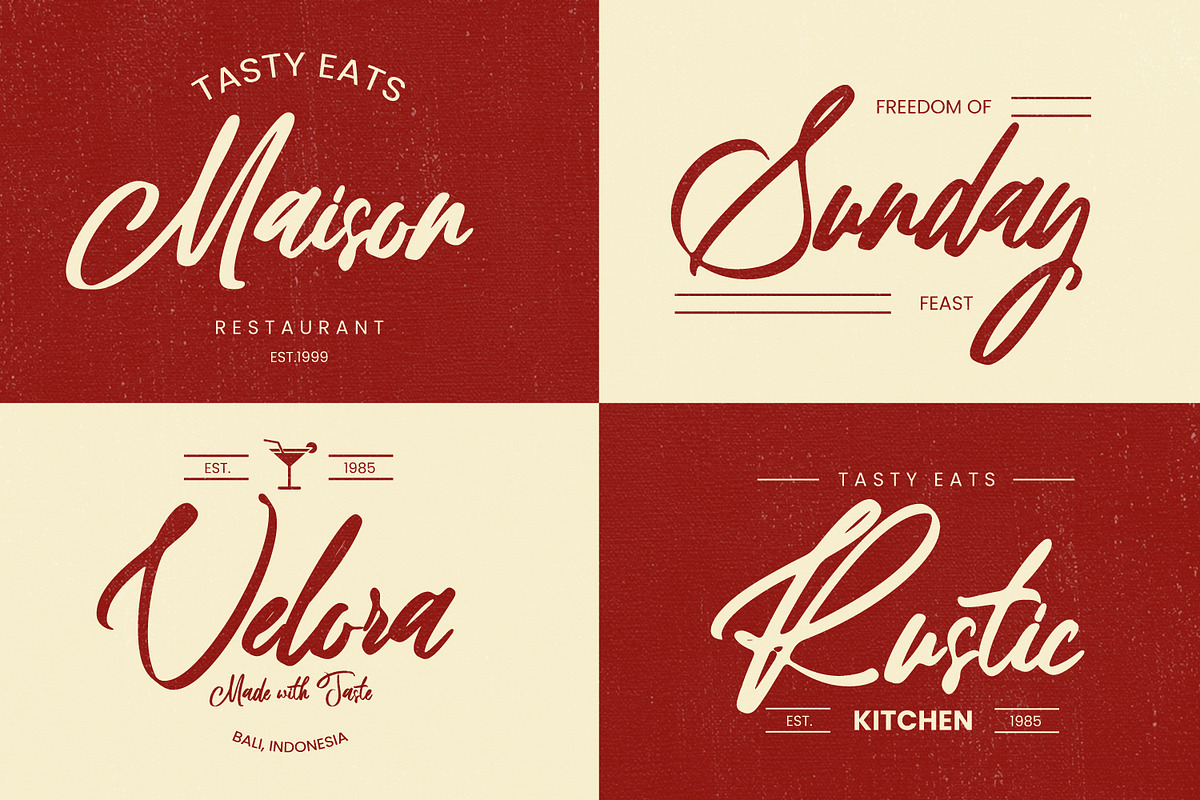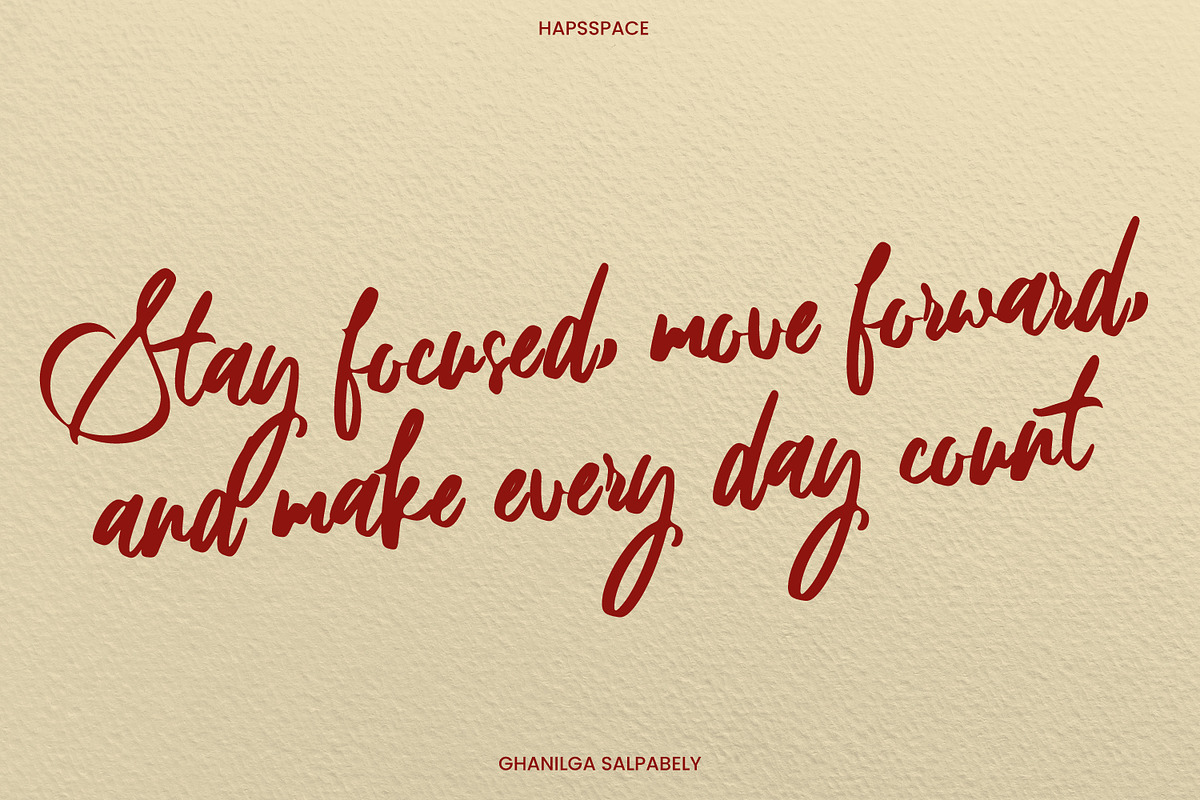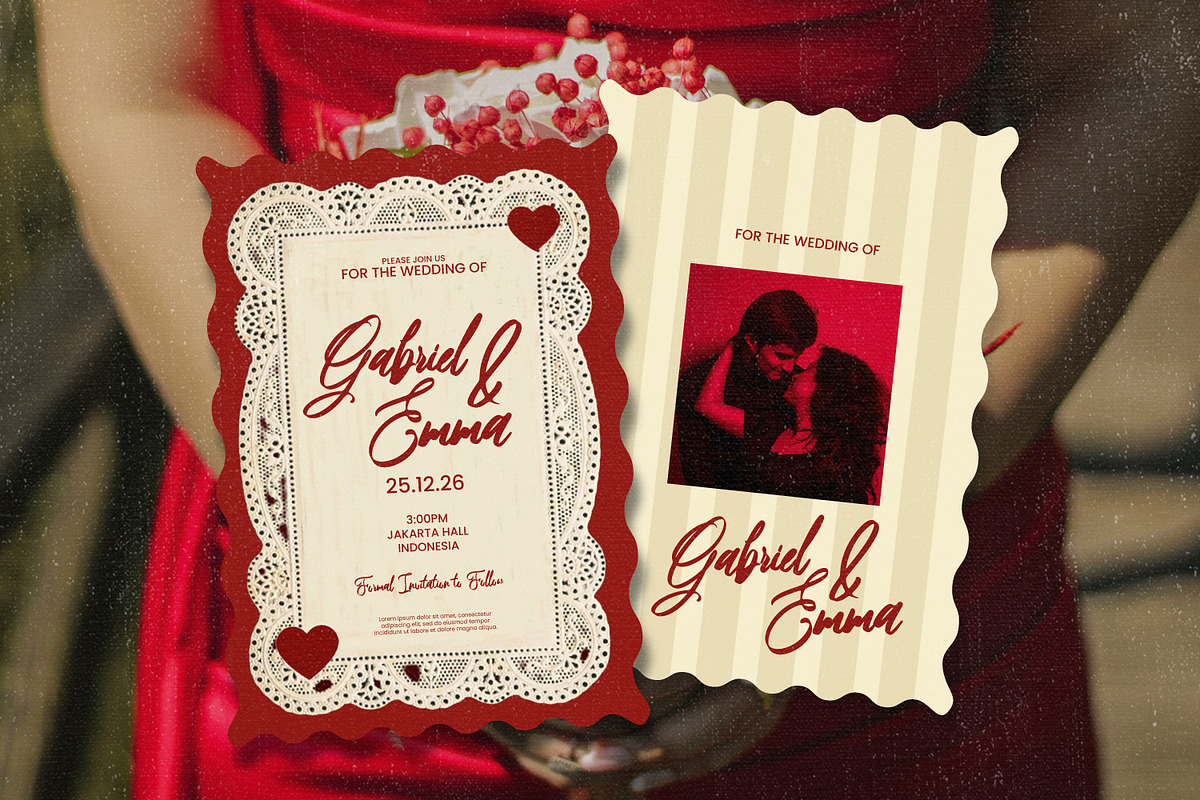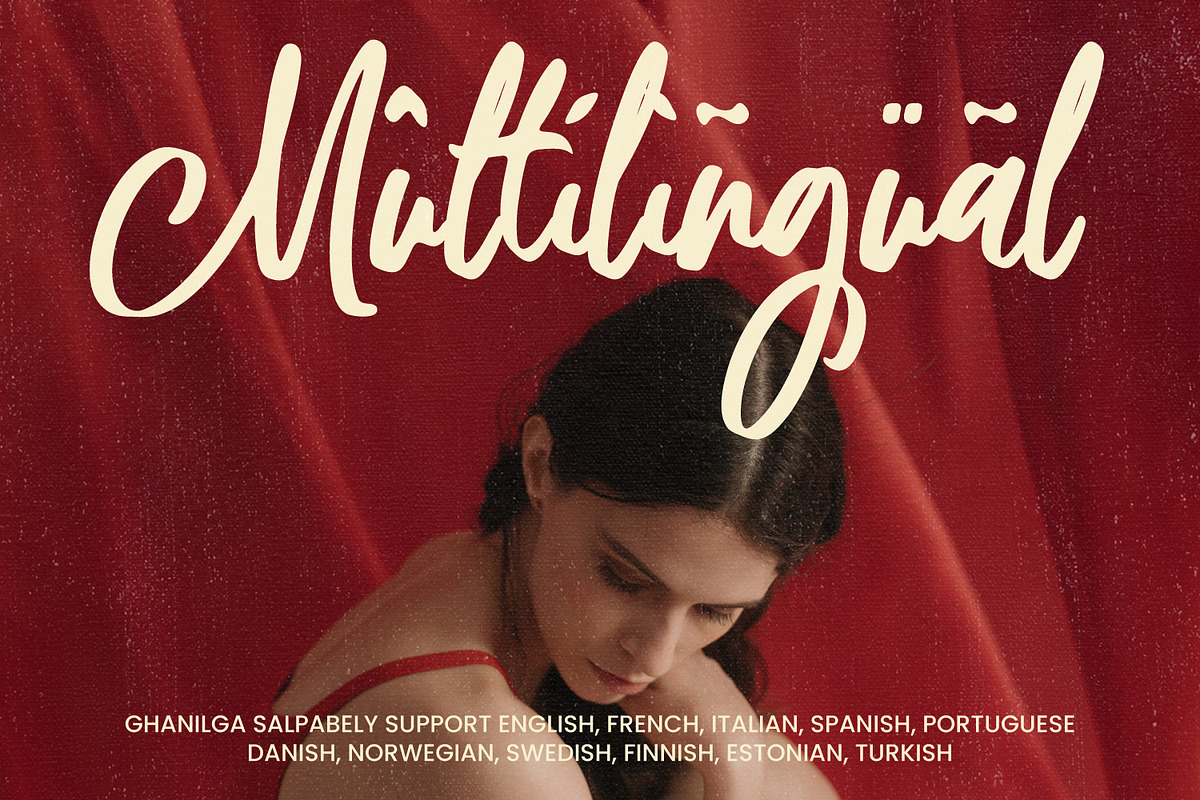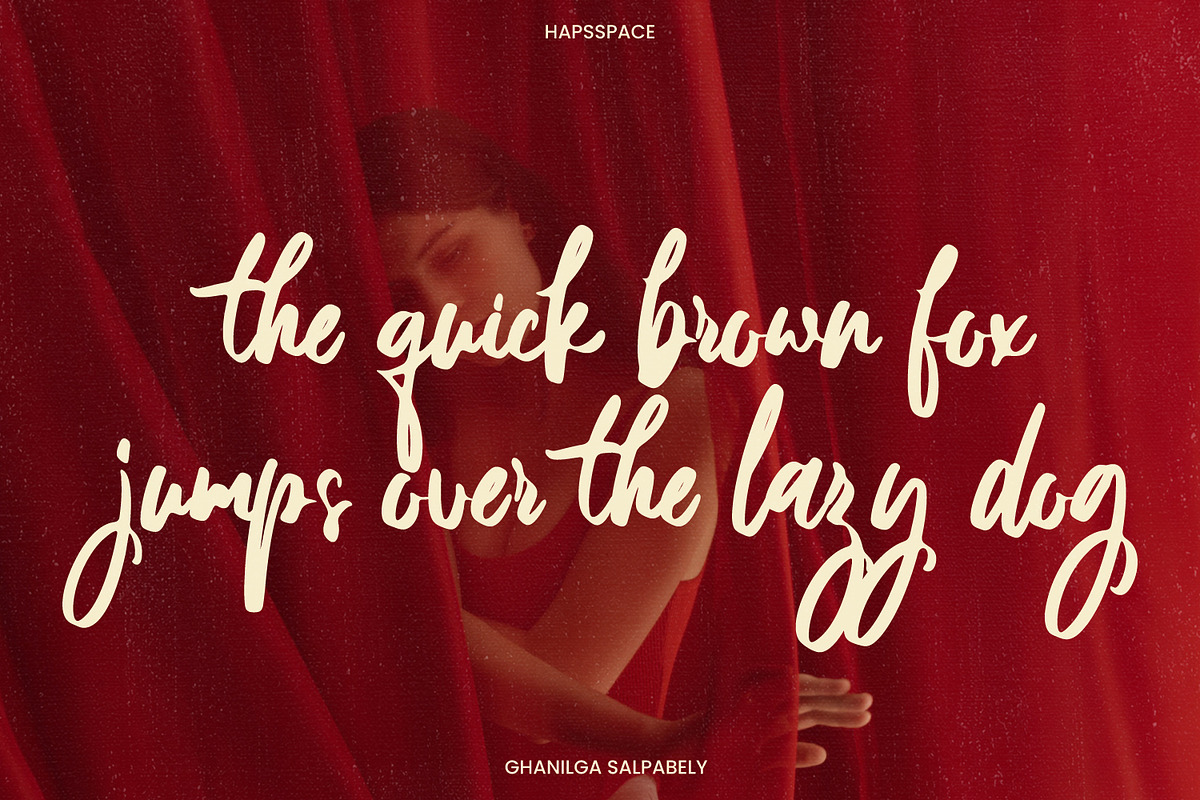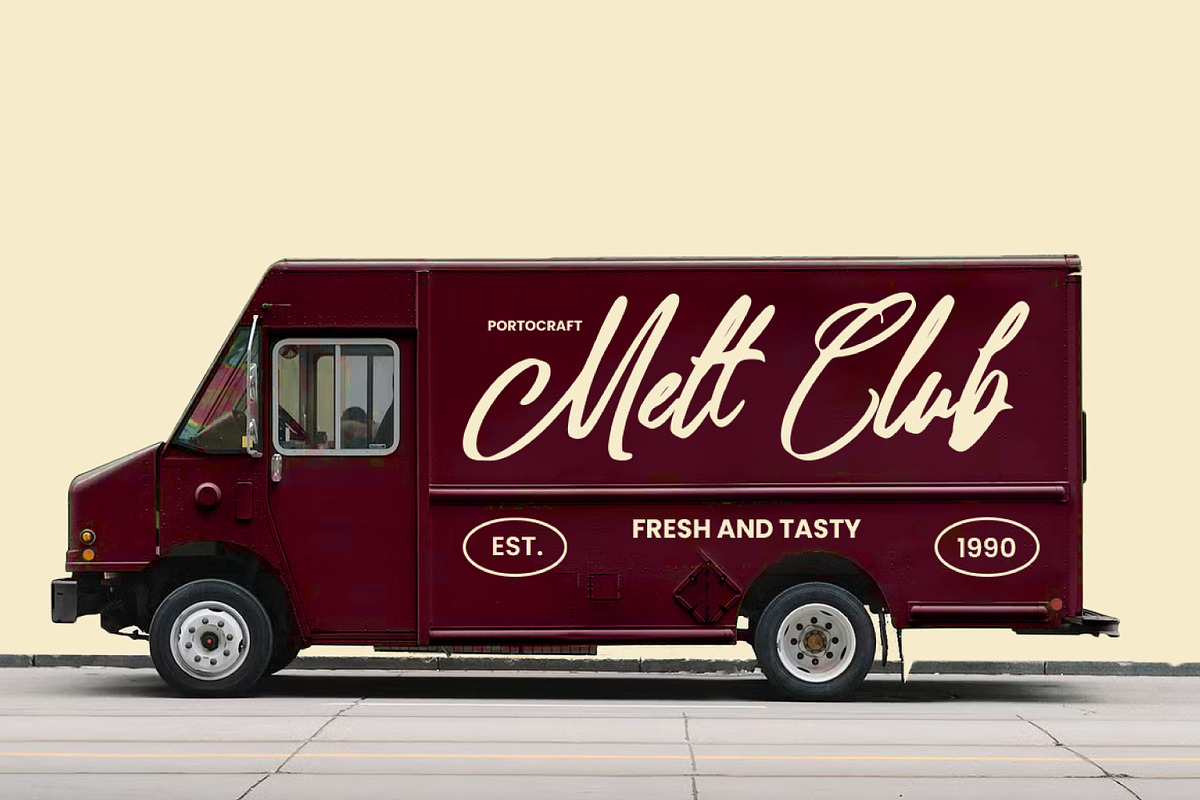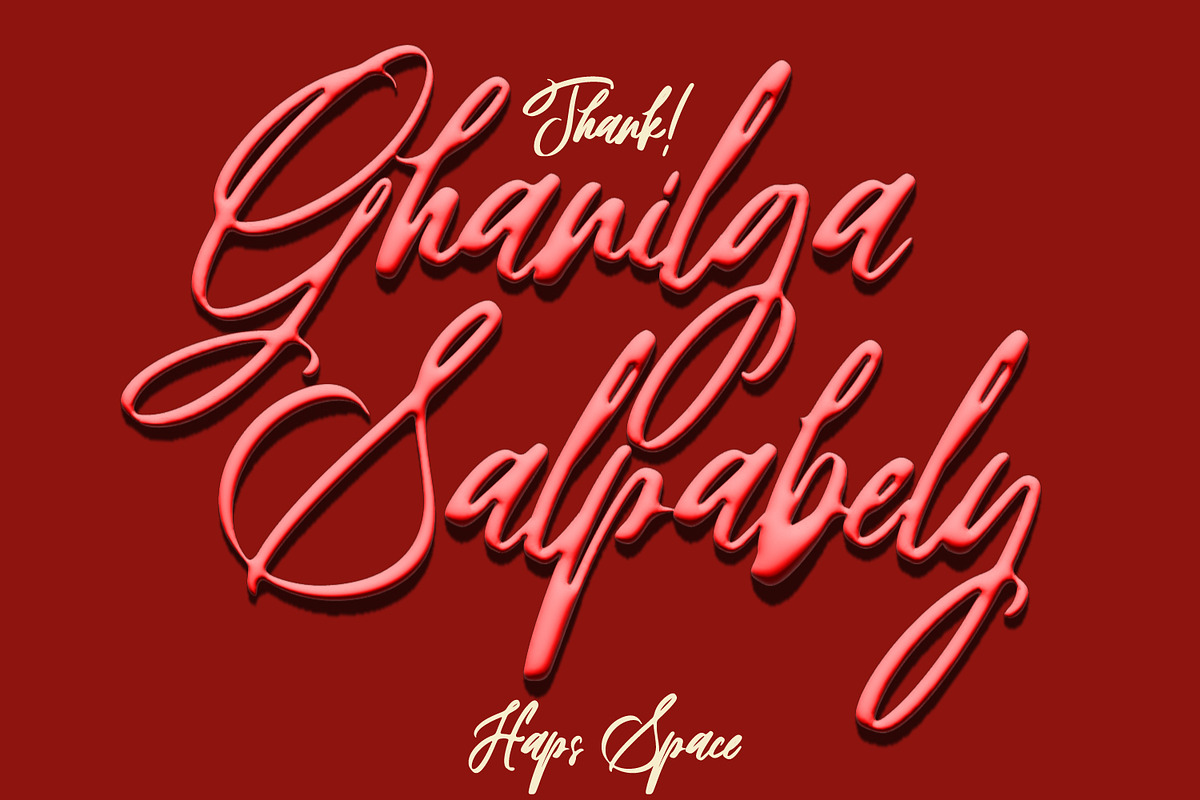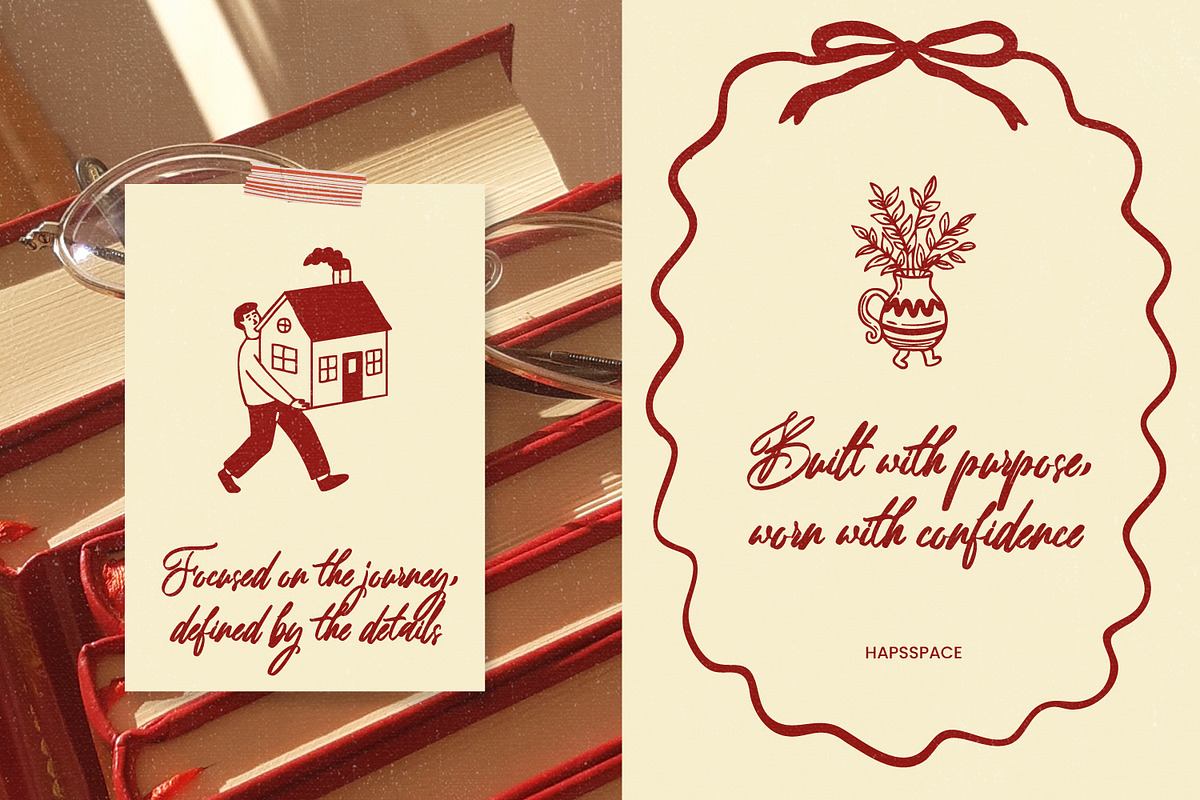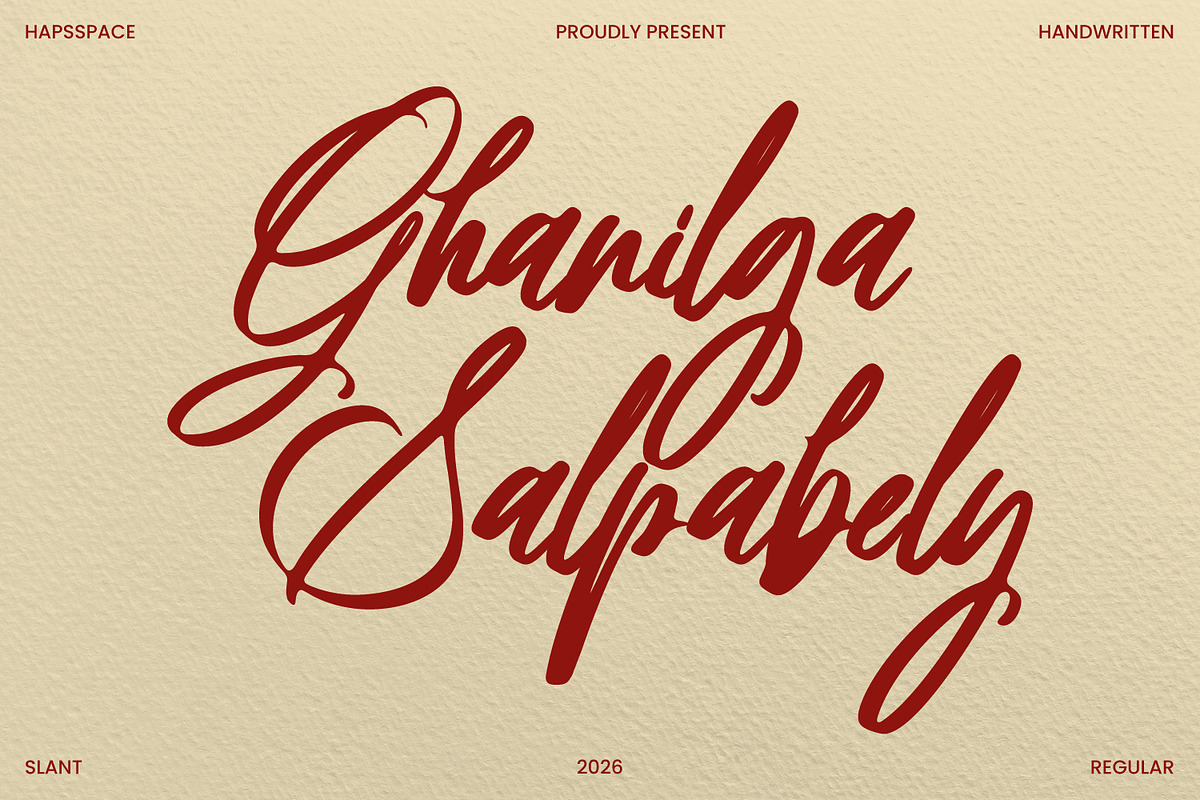
Ghanilga Salpabely Sophisticated
Ghanilga Salfabely is a sophisticated, expressive handwritten script font designed to bring romantic elegance, fluid signature strokes, and high-end charm to your creative projects. Featuring dynamic cursive loops, authentic hand-painted line weight, and two versatile styles (Slant & Regular), this typeface captures a refined artistic feel that instantly elevates display typography.
Crafted with high attention to detail, Ghanilga Salfabely is ideal for design layouts that require a luxurious, warm, and personal handcrafted touch.
2 Styles Included: Slant and Regular versions for dynamic typographic layouts.
Complete Character Set: Includes full Uppercase and Lowercase script letterforms.
Numbers & Punctuation: Complete set of numerals, standard symbols, and handwriting punctuation marks.
Smooth Cursive Ligatures: Fluid stroke connections for a realistic signature rhythm.
Multilingual Support: Accented characters supporting various European and Latin-based languages.
Ideal Applications:
Luxury Branding & Logos: Perfect for high-end boutique logos, skincare packaging, cosmetics, and jewelry lines.
Event Styling & Stationery: Beautiful typography for wedding invitations, save-the-date cards, place cards, and decorative signage.
Editorial & Publishing: Elegant titles for fashion magazines, book covers, digital lookbooks, and romance novels.
Social Media & Content Creation: Eye-catching overlays for aesthetic Instagram quotes, Pinterest graphics, and blog headers.
Packaging & Goods: Sophisticated branding for scented candles, wine labels, bakery goods, and artisanal products.